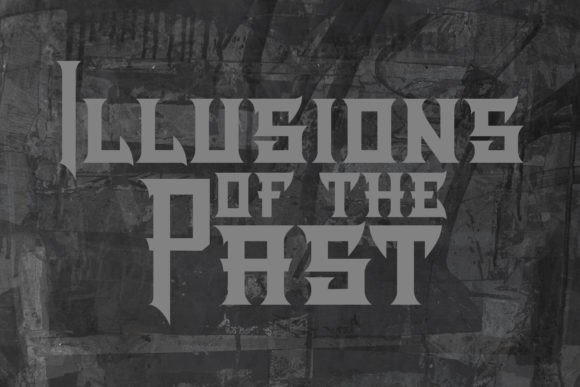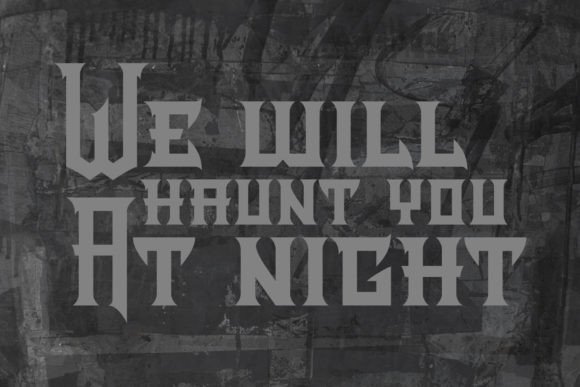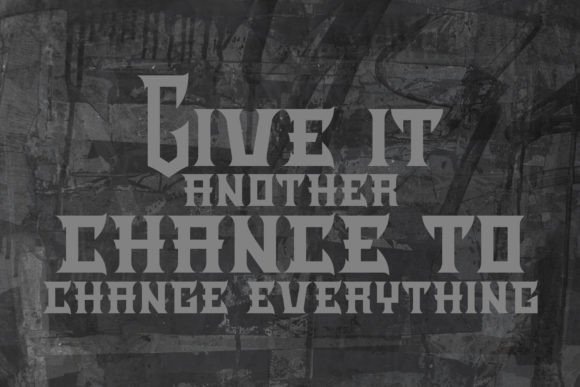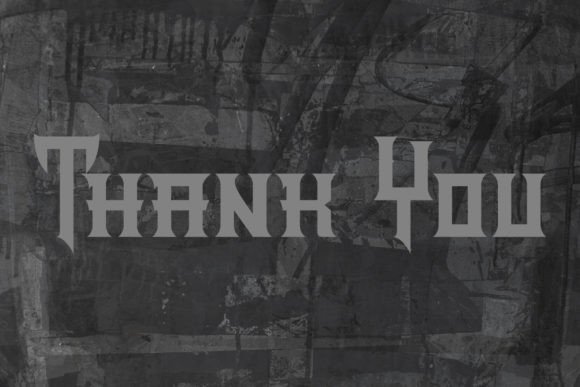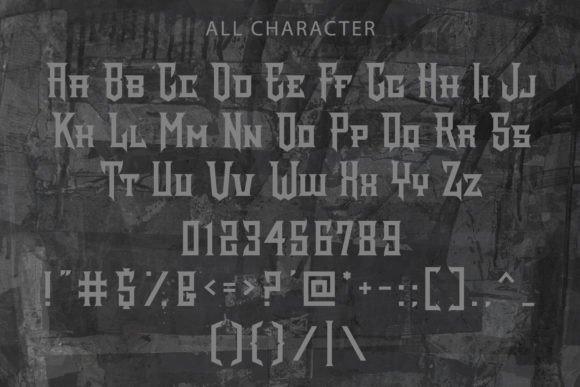
Crazy Graffiti Font: Unleash Your Creativity with this Bold and Edgy Typeface
Are you tired of using the same old fonts in your designs? Do you want to add a touch of urban grit and playfulness to your creations? Look no further than the Crazy Graffiti Font! This bold and chunky lettered display font is perfect for designers and crafters who want to evoke the iconic look and style of graffiti in their work.
What is Crazy Graffiti Font?
Crazy Graffiti is a bold and chunky lettered display font that playfully evokes the iconic look and style of graffiti. With its thick lines, vibrant colors, and edgy style, this font is sure to add a touch of urban cool to any design. Whether you’re working on a poster, flyer, or social media graphic, Crazy Graffiti Font is the perfect choice for designers who want to make a statement.
Key Features of Crazy Graffiti Font
• Bold and Chunky Letters: Crazy Graffiti Font features thick, chunky letters that are sure to grab attention.
• Urban and Edgy Style: This font has a distinctly urban feel, with a style that’s reminiscent of graffiti art.
• Playful and Fun: Despite its edgy style, Crazy Graffiti Font has a playful and fun vibe that’s perfect for designers who want to add some personality to their work.
• Easy to Read: Despite its bold and chunky style, Crazy Graffiti Font is surprisingly easy to read, making it perfect for headlines, titles, and other display text.
How to Use Crazy Graffiti Font
Crazy Graffiti Font is perfect for a wide range of design projects, including:
• Posters and Flyers: Add a touch of urban grit to your posters and flyers with Crazy Graffiti Font.
• Social Media Graphics: Use Crazy Graffiti Font to add some personality to your social media graphics and stand out from the crowd.
• Logos and Branding: Crazy Graffiti Font is perfect for logos and branding projects that require a bold and edgy style.
• Crafting and DIY Projects: Crazy Graffiti Font is also perfect for crafters and DIY enthusiasts who want to add a touch of urban style to their projects.
Tips for Using Crazy Graffiti Font
• Use it Sparingly: Crazy Graffiti Font is bold and attention-grabbing, so use it sparingly to avoid overwhelming your design.
• Pair it with Other Fonts: Crazy Graffiti Font pairs well with other fonts, so don’t be afraid to experiment with different combinations.
• Experiment with Colors: Crazy Graffiti Font looks great in a variety of colors, so experiment with different hues to find the perfect look for your design.
Font Name Crazy Graffiti Font
Author Kido Studio
Crazy Graffiti Font is a bold and edgy typeface that’s perfect for designers and crafters who want to add a touch of urban grit to their creations. With its thick lines, vibrant colors, and playful style, this font is sure to make a statement. Whether you’re working on a poster, flyer, or social media graphic, Crazy Graffiti Font is the perfect choice for designers who want to unleash their creativity and add some personality to their work.